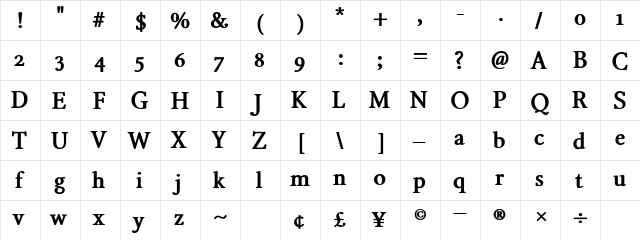
Pippin Bold
Design Context for Pippin Typeface
Pippin offers clean, dependable letterforms without strong stylistic allegiance, making it a practical choice for designers who need flexibility. Its bold stroke weight gives it real presence on the page.